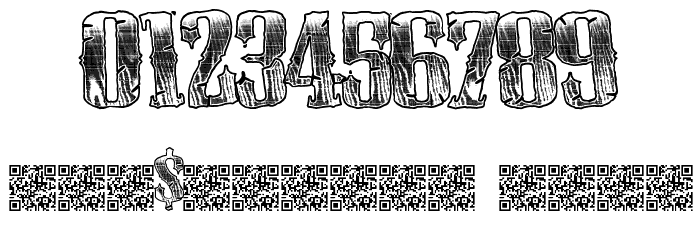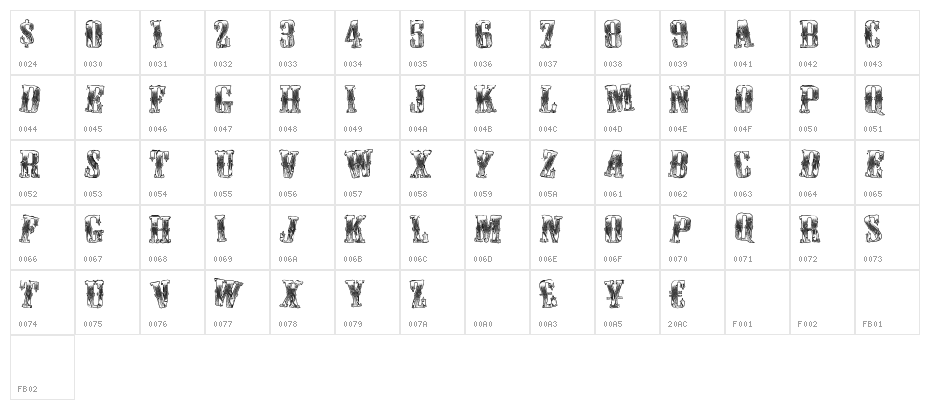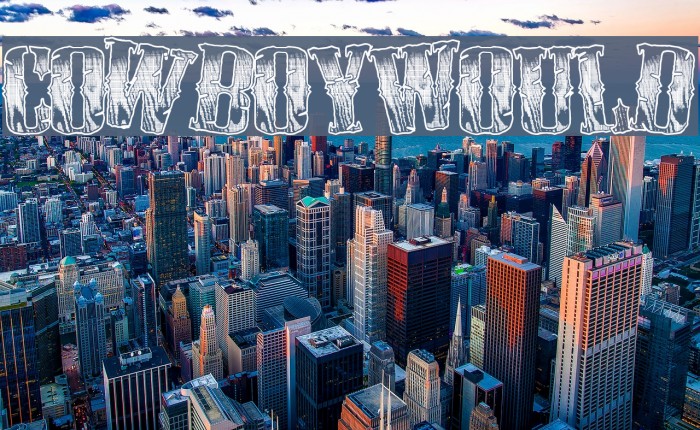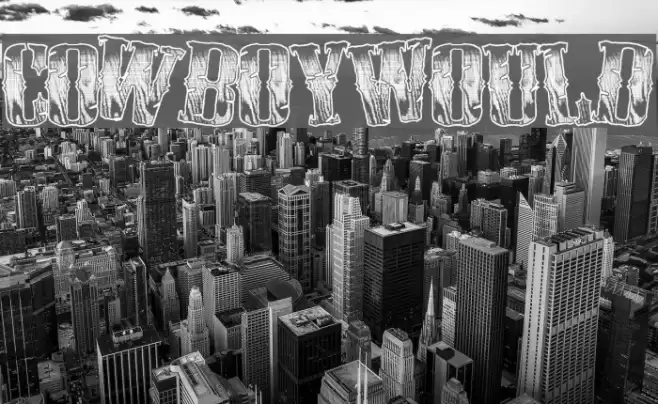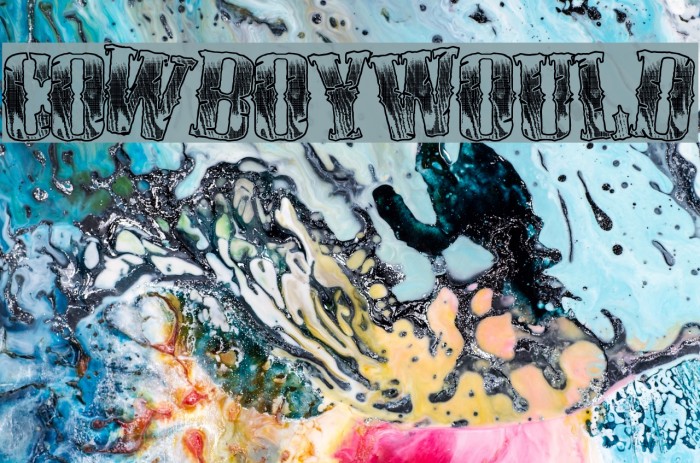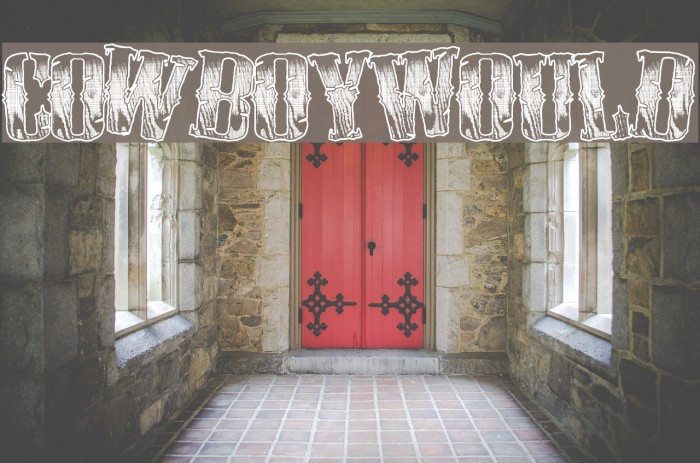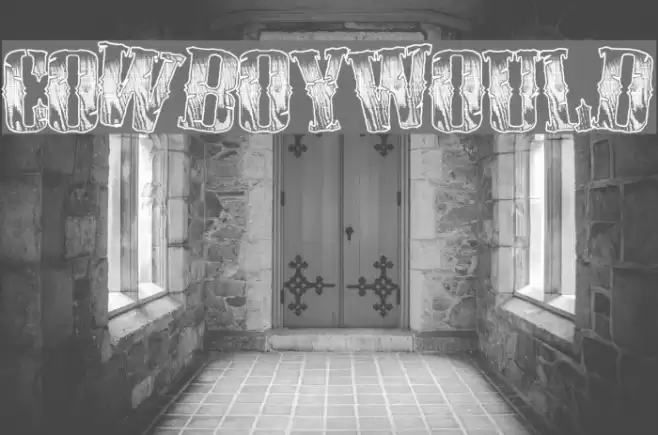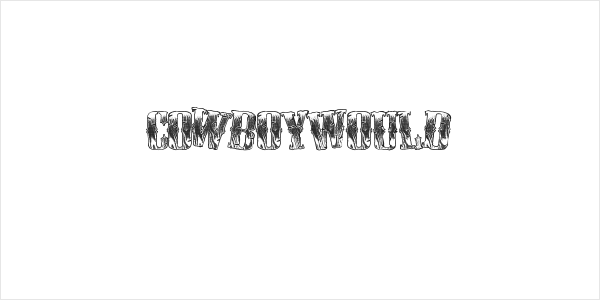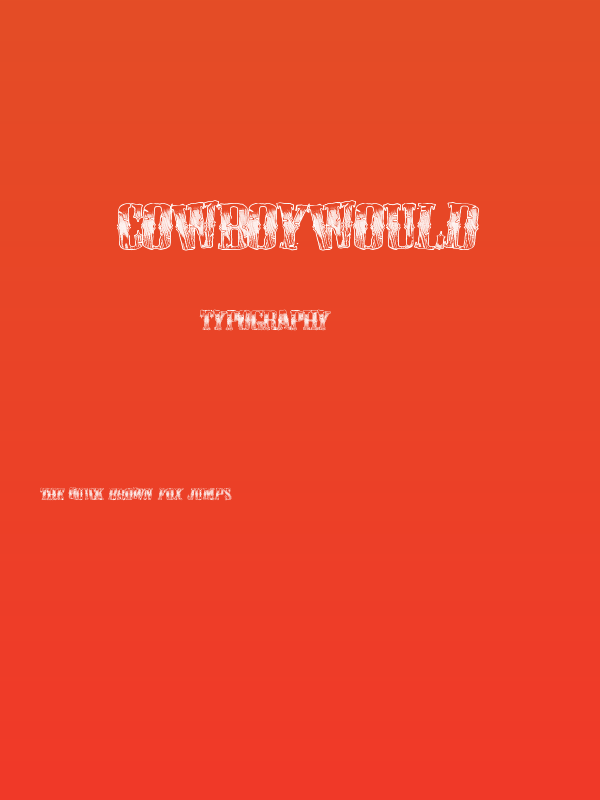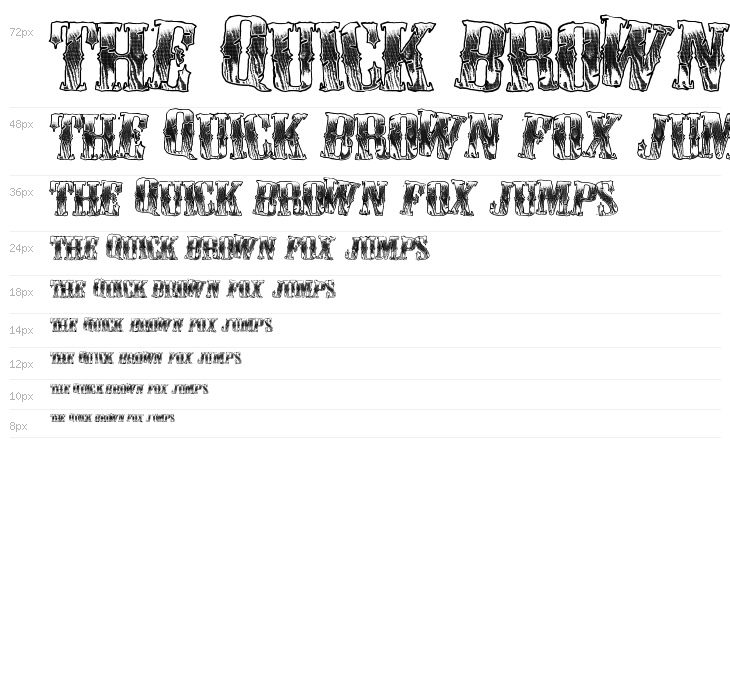
CowboyWould Font
CowboyWould Description
This font embodies a rugged, Western aesthetic, reminiscent of classic cowboy themes. The characters are bold and heavily stylized, featuring intricate detailing that mimics wood grain patterns. Each letter has a distressed, textured appearance, giving it a vintage, worn look. The font's design is highly decorative, with exaggerated serifs and a bold presence that commands attention. The numbers and special characters maintain the same stylistic elements, ensuring consistency across all glyphs. This font is ideal for projects that require a strong, thematic presence, such as posters, signage, or branding that seeks to evoke a sense of the Old West.
| Use Case | Headlines, Logos, Decorative text |
| Proposed Projects | Perfect for Western-themed posters, vintage signage, branding, and decorative projects. |